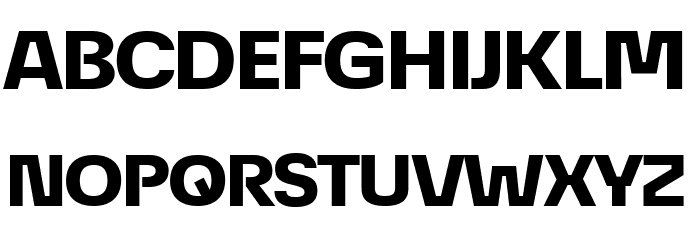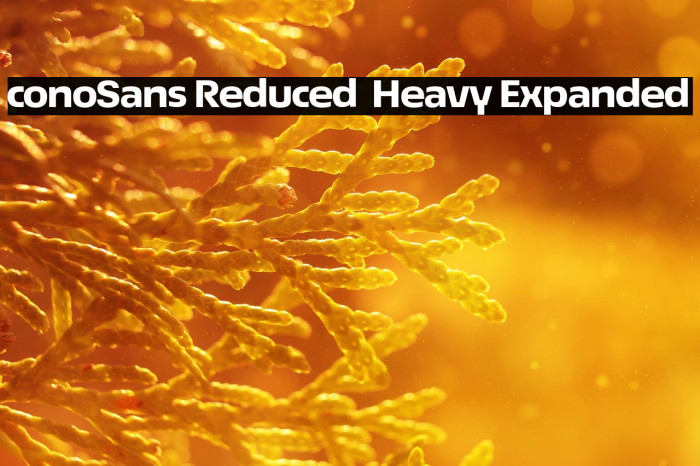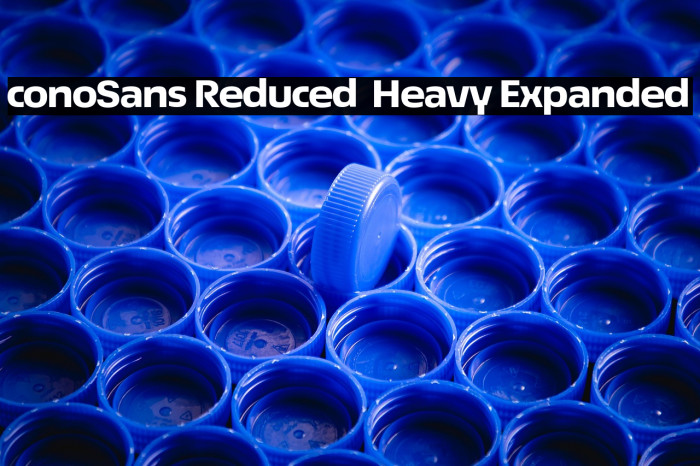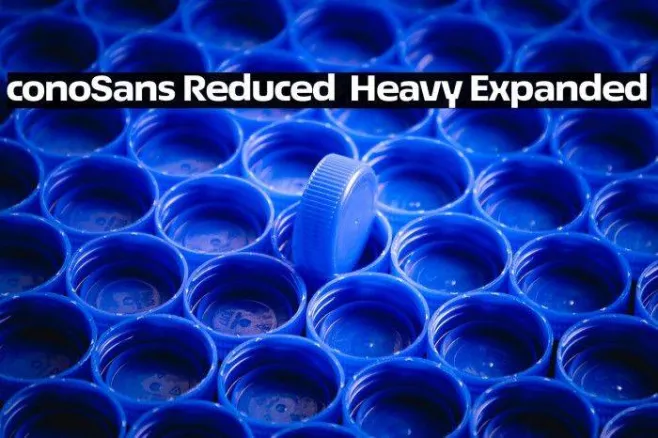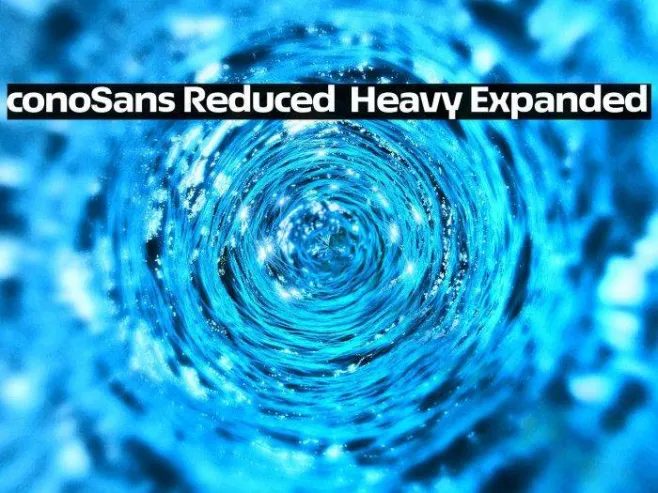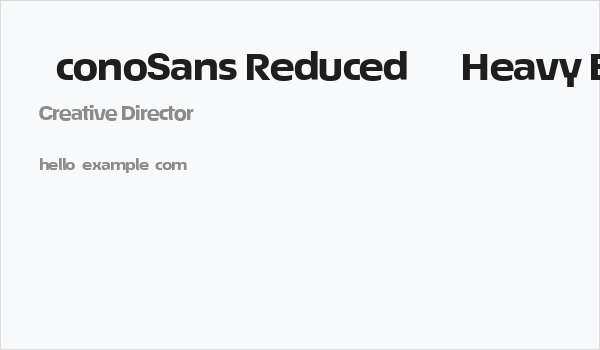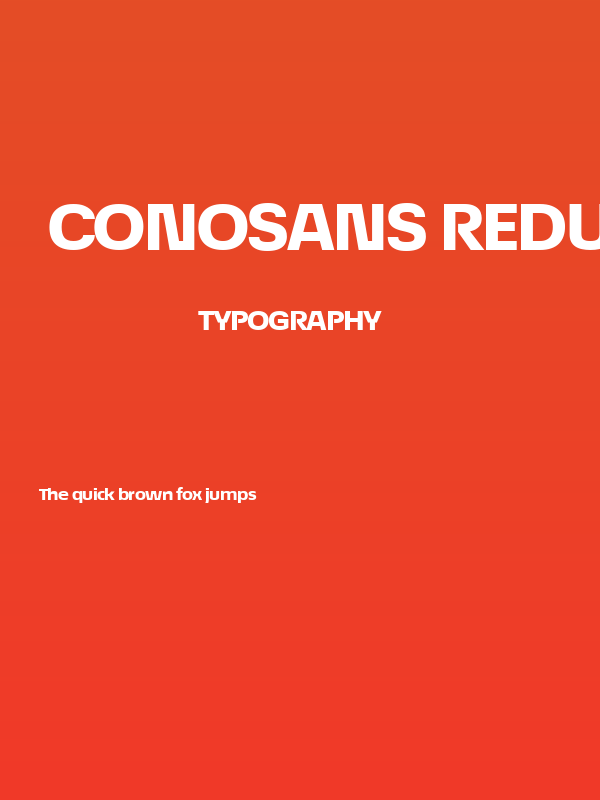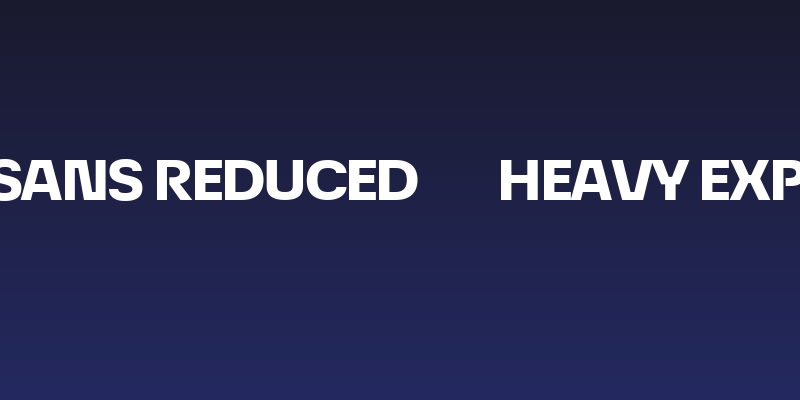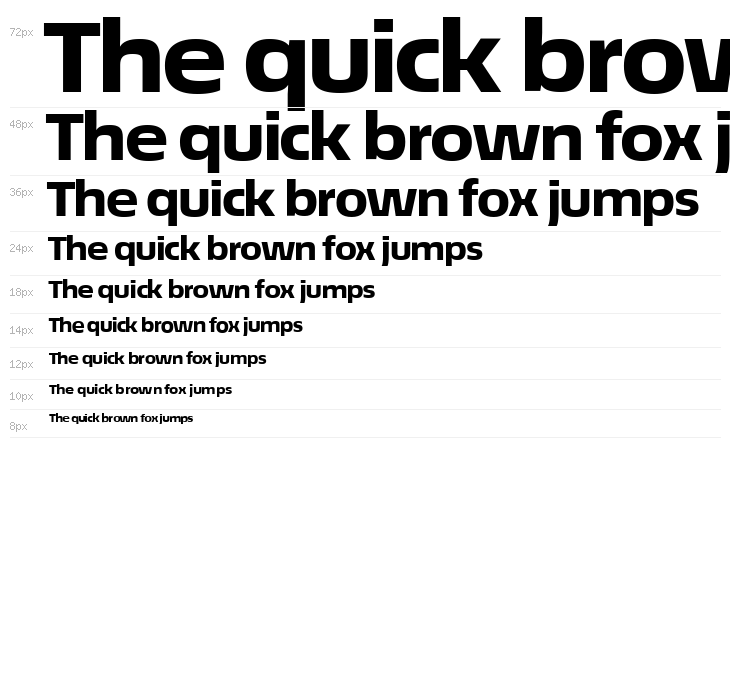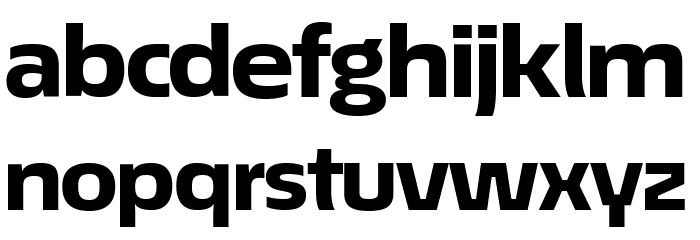
ÉconoSans Reduced 83 Heavy Expanded Font
ÉconoSans Reduced 83 Heavy Expanded Description
This font features a bold and heavy appearance with expanded letterforms, giving it a strong and impactful presence. The characters are sans-serif, characterized by clean lines and a modern aesthetic. The uppercase and lowercase letters maintain a consistent weight, contributing to a uniform look. The font's expanded width allows for greater readability and makes it suitable for attention-grabbing headlines. The design is straightforward yet powerful, with a contemporary style that can be used in various design contexts.
| Proposed Projects | Ideal for branding, advertising, headlines, and any project requiring a strong visual impact. |